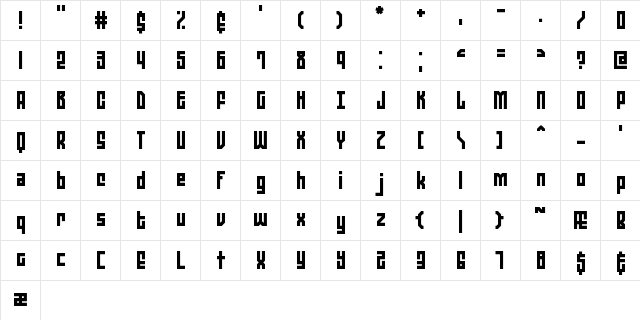
Zephyrean BRK Normal
Design Context for Zephyrean BRK Typeface
Zephyrean BRK offers clean, dependable letterforms without strong stylistic allegiance, making it a practical choice for designers who need flexibility.